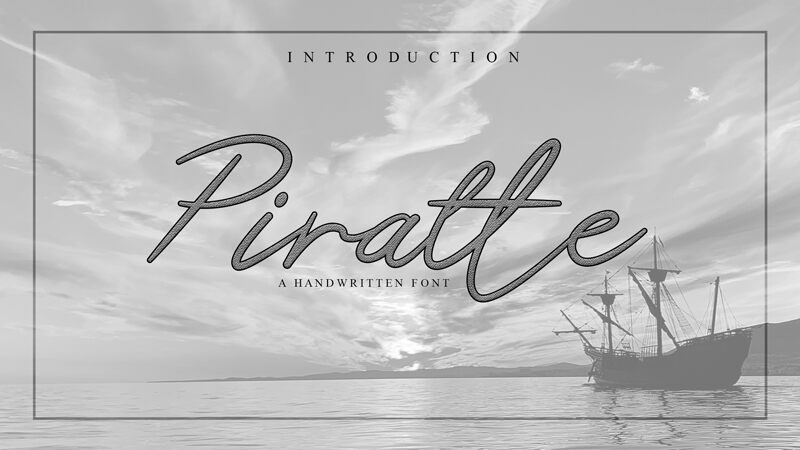
Piratte Diarys, a charming handwritten font by Eko Mulyani, exudes a delicate elegance with its light weight.
Its unique and intricate strokes capture the essence of personal expression, making it perfect for romantic wedding invitations or heartfelt love letters. The playful nature of this font adds a touch of whimsy to children's book covers or candy packaging. Piratte Diarys also brings an authentic feel to travel journals and adventure-themed websites, immersing readers in captivating tales.
Embrace the beauty of handwritten artistry with Piratte Diarys font and let your words dance across the page.